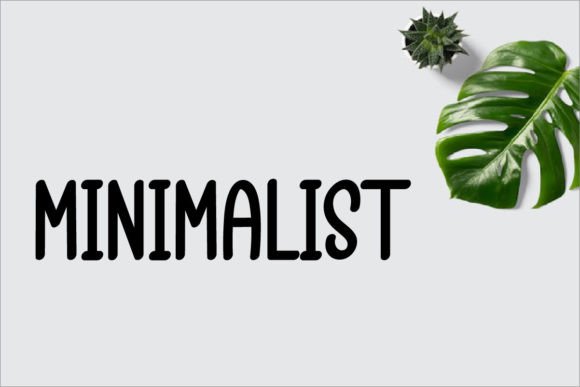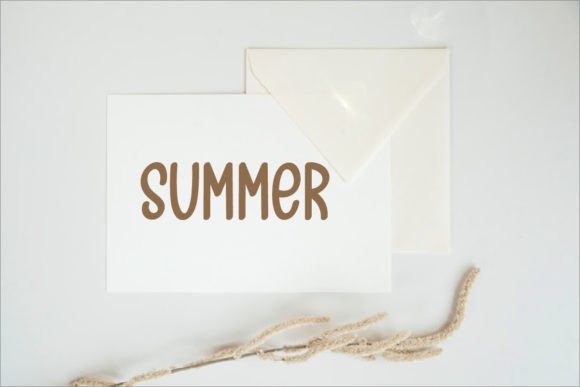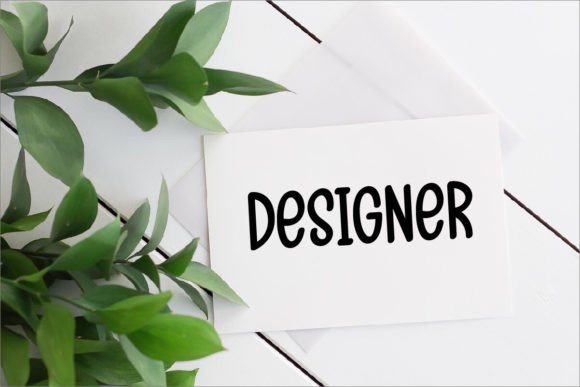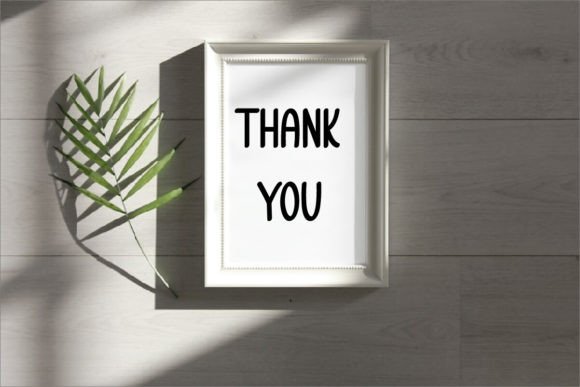
The Charm of Chicago Font: A Designer’s Delight
I still remember the project that led me to discover the Chicago font. I was working on a wedding invitation design, and my client wanted something that felt warm, personal, and unique. I had spent hours browsing through font libraries, but nothing seemed quite right. That was when I stumbled upon Chicago, a delightful handwritten font that instantly captured the essence of what I was looking for.
A Personal Review: What I Love About Chicago Font
Chicago font has quickly become one of my go-to choices for designs that require a personal touch. Here are a few things I love about it:
- ✨ Warmth and personality: Chicago exudes a sense of warmth and authenticity, making it perfect for conveying heartfelt messages.
- ✅ Whimsical strokes: The font’s whimsical strokes and varied letterforms add a touch of charm to any design.
- 💕 Versatility: Chicago works beautifully for invitations, greeting cards, branding, and more.
While Chicago font is a gem, it’s not without its quirks. Here are a few things to keep in mind:
- 🤔 Limited use in long-form text: Chicago is best suited for short to medium-length text. For longer pieces, it might become overwhelming.
- ⚠️ Requires attention to spacing: Depending on the design, you might need to adjust the spacing between letters to ensure optimal readability.
- Experiment with OpenType features, such as ligatures and stylistic alternates, to add more personality to your text.
The Story Behind Chicago Font
Chicago font was created with the intention of capturing the essence of handwritten communication. Its designer aimed to craft a font that felt approachable, warm, and genuine. While the exact story behind the font’s creation might be unknown, it’s clear that Chicago font has become a beloved choice among designers and crafters alike.
| Font Name | Chicago Font |
| Author | AA studio |
| Is Chicago font suitable for body text? | No, Chicago font is best used for short to medium-length text, such as headings, titles, or captions. |
| Does Chicago font support OpenType features? | Yes, Chicago font supports OpenType features, including ligatures and stylistic alternates. |